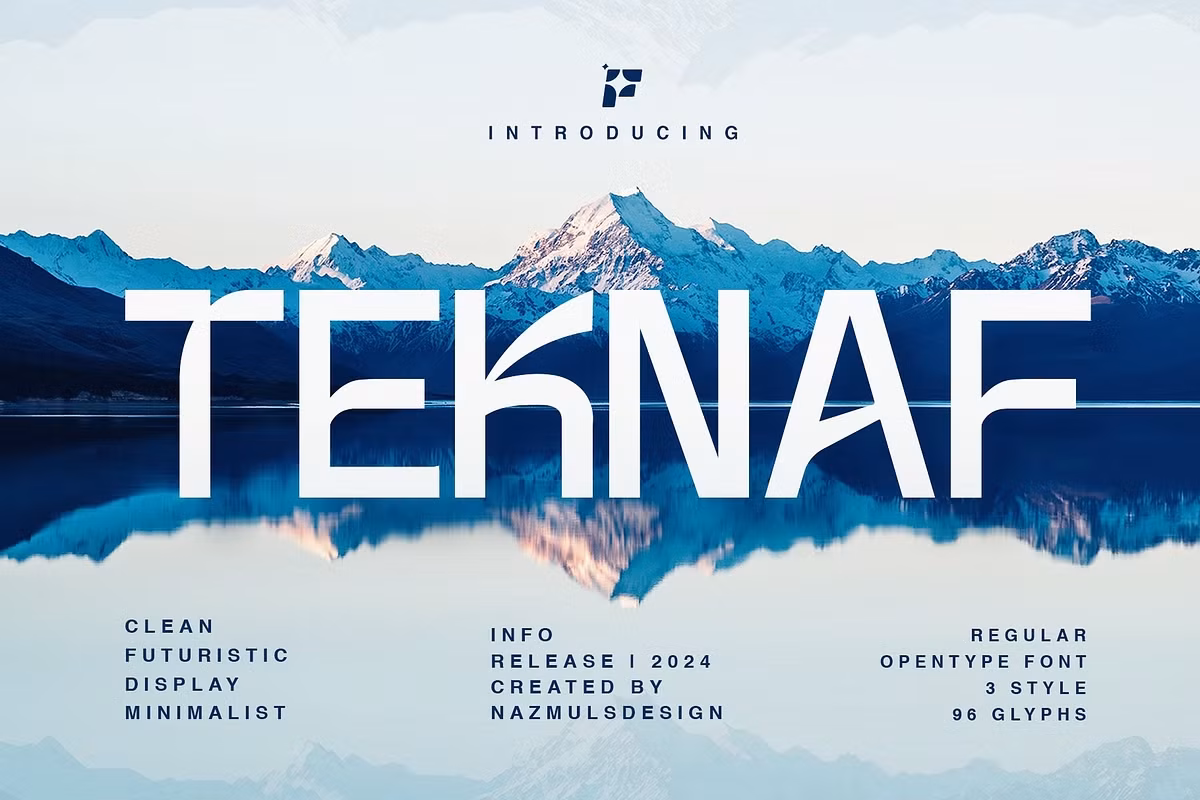
TEKNAF Sans Serif Typeface Free Download is a sleek, modern sans-serif font designed for clean, contemporary designs. Featuring bold lines and geometric shapes, this font is perfect for branding, logos, websites, editorial layouts, and advertising materials.
Its minimalist yet striking design ensures readability and clarity, making it ideal for both print and digital use. Whether you're working on a tech brand, a corporate identity, or a creative campaign, TEKNAF Sans Serif Typeface Free Download adds a strong, professional touch to your typography.